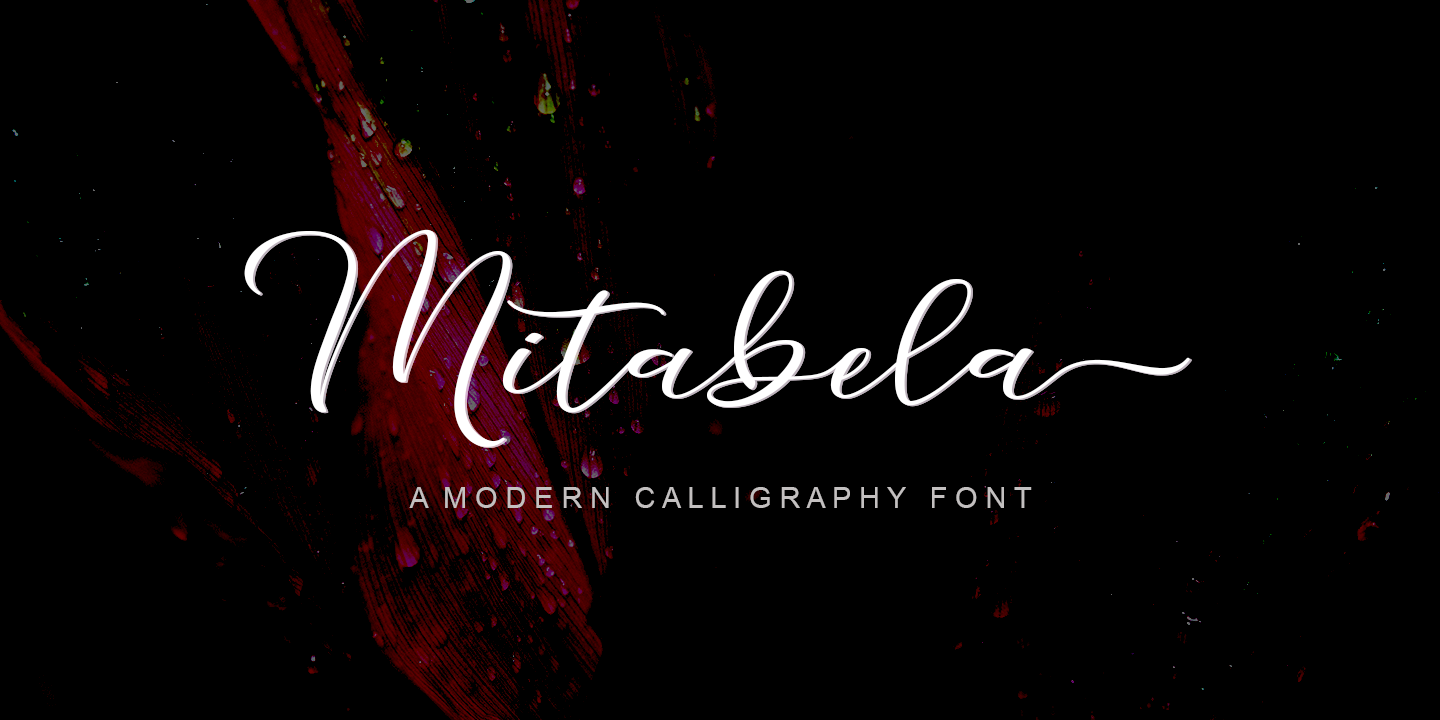
Mitabela Font is perfect for children's books, educational materials, playful brand identities, toy packaging, kindergarten signage, family-friendly restaurants, creative workshops, birthday party invitations, youth organizations, and cheerful marketing campaigns. This delightful typeface excels in projects that require warmth, approachability, and joyful communication.
What makes Mitabela Font exciting is its remarkable ability to evoke feelings of wonder and happiness through carefully crafted letterforms that seem to smile and dance with childlike enthusiasm. The font features friendly curves, optimistic proportions, and playful character variations that create instant emotional connection. Its cheerful personality captures the essence of innocent joy while maintaining excellent readability, making it perfect for brands that want to communicate trust, safety, and genuine care for family values.
Mitabela Font comes in comprehensive font families including Regular, Bold, Light, Italic, Rounded, and Playful variants. Each family member maintains the distinctive friendly character while offering different levels of playfulness and stylistic approaches to accommodate various child-focused design needs and family-oriented branding requirements.
This premium family-friendly typeface represents an outstanding choice for designers working in education, children's entertainment, and family-focused industries. Mitabela Font Free Download provides exceptional value for educators, children's book publishers, and creative agencies specializing in youth-oriented visual communication. The font's trustworthy appeal makes it particularly suitable for educational programs, children's products, family services, and community organizations.
Whether you're developing brand identity for educational institutions, creating marketing materials for family entertainment, or designing content for children's products, Mitabela Font brings the perfect touch of joy and reliability that makes every project feel safe, welcoming, and genuinely caring.